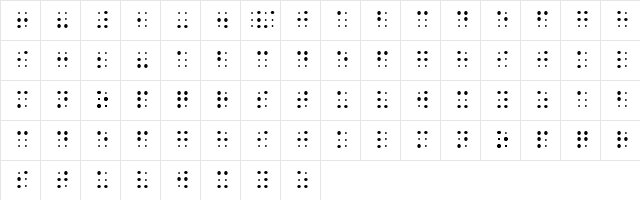
Sheets Braille Regular Free Font
Sheets Braille Regular
Foundry: Doug Sheets
Designer: Doug Sheets
Year: 2011
Design Context for Sheets Braille
Sheets Braille is a composed and adaptable typeface that performs quietly and consistently across a wide range of design contexts.